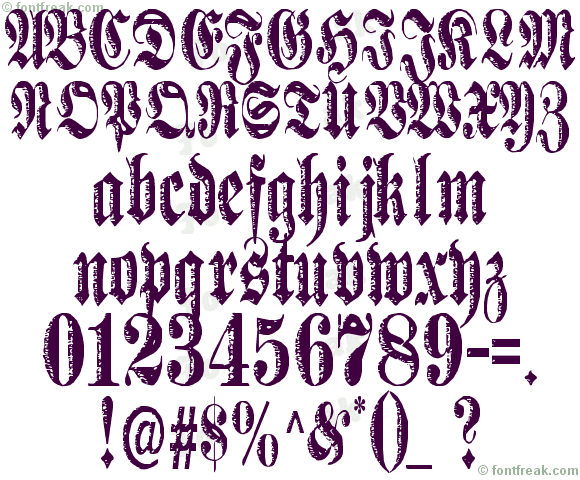
Made
About Made
The Made font by Pennyzine is a striking display typeface that exudes a unique blend of elegance and boldness. With its distinct, ornate design reminiscent of classic calligraphy, this font captures attention while maintaining readability. The strokes exhibit a varied weight, creating a dynamic contrast that draws the eye. The intricate decorative elements integrated into the letterforms add depth and character, making it ideal for projects that require a touch of sophistication.
Best suited for high-impact designs, the Made font shines in various creative applications. It is perfect for wedding invitations, where its romantic flair can enhance the overall aesthetic. Similarly, it works beautifully for movie posters, lending an air of drama and intrigue. Restaurant menus can also benefit from its stylish presence, enticing patrons with a visually appealing format. Content creators looking to spice up their online presence will find the Made font advantageous for social media graphics or website headers, as it stands out in a crowded digital landscape.
The target audience for this font includes graphic designers seeking to elevate their projects, small business owners looking to establish a distinctive brand identity, and content creators wanting to make their work more visually engaging. Its versatility allows it to cater to a wide range of creative needs.
What sets the Made font apart is its ability to combine artistry with functionality. It is not just a typeface; it's a statement piece that enhances any design. With the Made font free download available, anyone can incorporate this exceptional typeface into their work, allowing for limitless creative possibilities. Whether for personal projects or professional endeavors, the Made font is sure to leave a lasting impression.